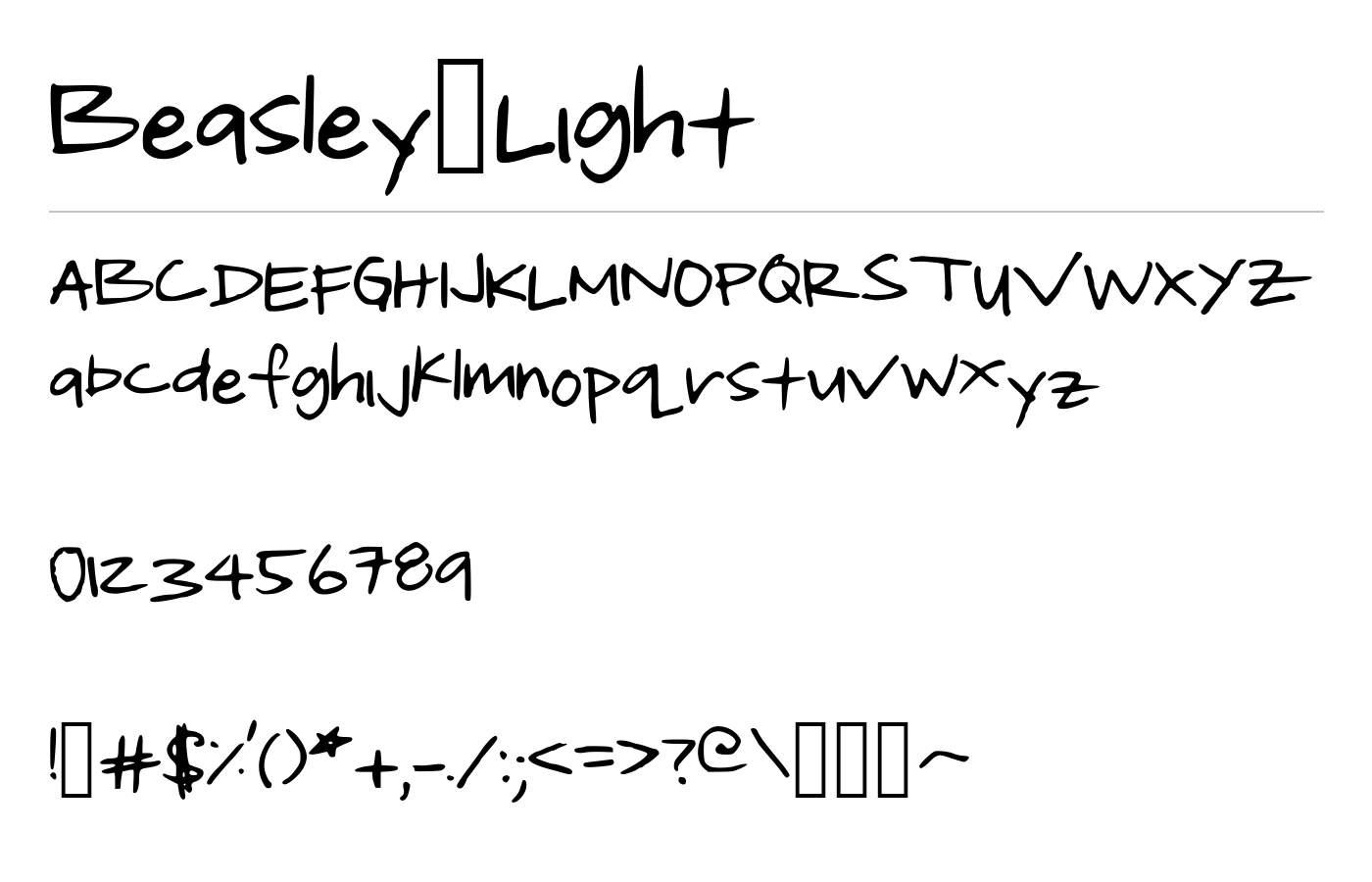
Beasley Light is a casual, handwritten sans serif font with a light weight and lively, irregular strokes that give it a personal and approachable feel. Its tall x-height, single-story letterforms, and playful shapes make it ideal for informal designs, creative projects, and branding that aims to appear friendly and genuine. This font works well in logos, posters, and social media where a natural, hand-drawn vibe adds warmth and personality.
Beasley_Light Font
About Beasley_Light Font